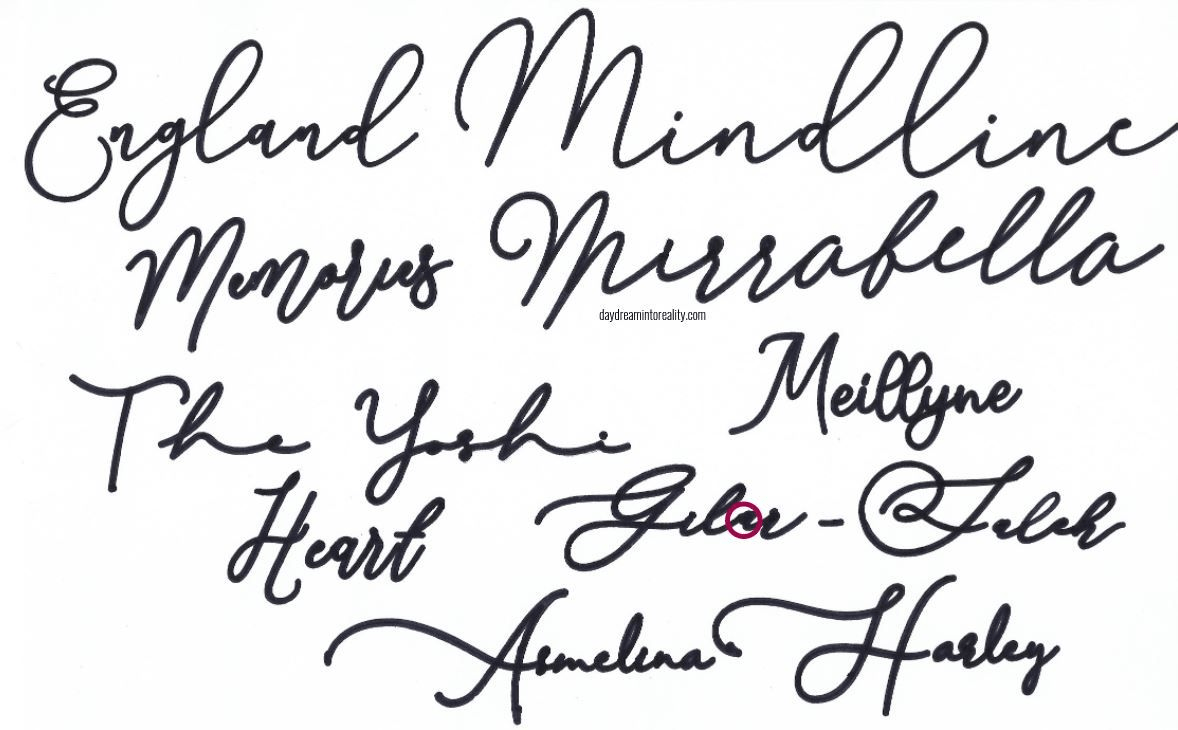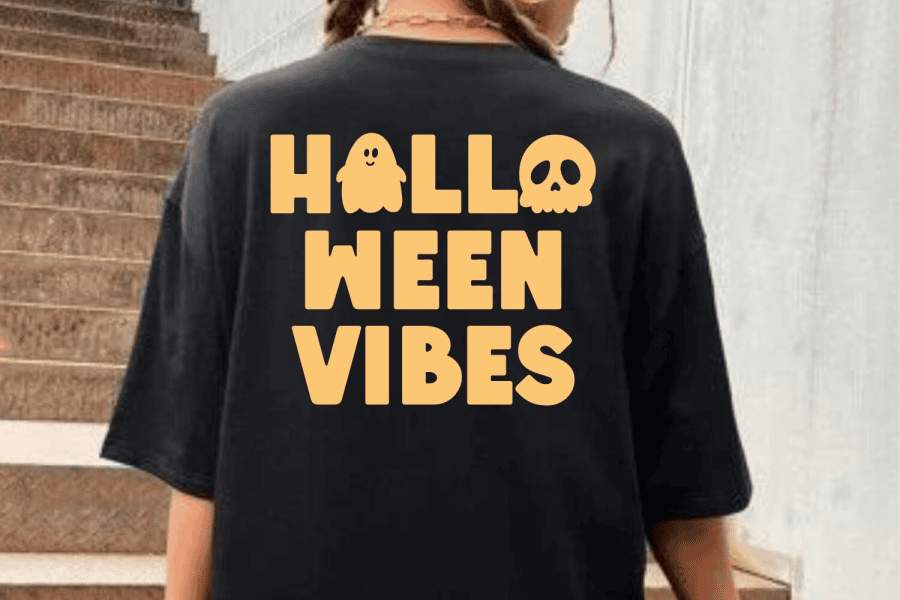
Best Fonts For Small Text Cricut . This guide covers the things that matter most when cutting small fonts (click the link to jump to that section):. This handwritten font is relaxing, yet amplifies many different craft projects. A great one for cards! Here are a few of my favorite places to purchase and download free fonts for your cricut: It comes in three different styles, each suitable for cutting machines. But if you're wondering where to find the best fonts for small text in cricut, envato is a great option. Open cricut design space, open your project (or start a new one) and click on. Learn more about using system fonts, including the installation of a zip file, in my post how to upload fonts to design space. The love mama font pairing features a modern cursive and playful sans font. How to find fonts in cricut design space. Tips & tricks when cutting small vinyl fonts.
This handwritten font is relaxing, yet amplifies many different craft projects. Open cricut design space, open your project (or start a new one) and click on. The love mama font pairing features a modern cursive and playful sans font. Tips & tricks when cutting small vinyl fonts. A great one for cards! How to find fonts in cricut design space. This guide covers the things that matter most when cutting small fonts (click the link to jump to that section):. But if you're wondering where to find the best fonts for small text in cricut, envato is a great option. Here are a few of my favorite places to purchase and download free fonts for your cricut: It comes in three different styles, each suitable for cutting machines.
Best Fonts For Small Text Cricut This handwritten font is relaxing, yet amplifies many different craft projects. A great one for cards! This guide covers the things that matter most when cutting small fonts (click the link to jump to that section):. This handwritten font is relaxing, yet amplifies many different craft projects. Tips & tricks when cutting small vinyl fonts. But if you're wondering where to find the best fonts for small text in cricut, envato is a great option. It comes in three different styles, each suitable for cutting machines. Learn more about using system fonts, including the installation of a zip file, in my post how to upload fonts to design space. Here are a few of my favorite places to purchase and download free fonts for your cricut: Open cricut design space, open your project (or start a new one) and click on. The love mama font pairing features a modern cursive and playful sans font. How to find fonts in cricut design space.
The Best Cricut Fonts Cricut fonts, Free fonts for cricut, Cricut Best Fonts For Small Text Cricut How to find fonts in cricut design space. This handwritten font is relaxing, yet amplifies many different craft projects. Open cricut design space, open your project (or start a new one) and click on. A great one for cards! It comes in three different styles, each suitable for cutting machines. This guide covers the things that matter most when cutting. Best Fonts For Small Text Cricut.
6 Free Love, Cricut, Mother Fonts · 1001 Fonts Best Fonts For Small Text Cricut Learn more about using system fonts, including the installation of a zip file, in my post how to upload fonts to design space. Open cricut design space, open your project (or start a new one) and click on. It comes in three different styles, each suitable for cutting machines. This guide covers the things that matter most when cutting small. Best Fonts For Small Text Cricut.
Best Free Script Fonts In Cricut Design Space Best Fonts For Small Text Cricut Here are a few of my favorite places to purchase and download free fonts for your cricut: Tips & tricks when cutting small vinyl fonts. This handwritten font is relaxing, yet amplifies many different craft projects. It comes in three different styles, each suitable for cutting machines. How to find fonts in cricut design space. But if you're wondering where. Best Fonts For Small Text Cricut.
6 Free Love, Cricut, Mother Fonts · 1001 Fonts Best Fonts For Small Text Cricut It comes in three different styles, each suitable for cutting machines. Open cricut design space, open your project (or start a new one) and click on. This guide covers the things that matter most when cutting small fonts (click the link to jump to that section):. A great one for cards! Tips & tricks when cutting small vinyl fonts. The. Best Fonts For Small Text Cricut.